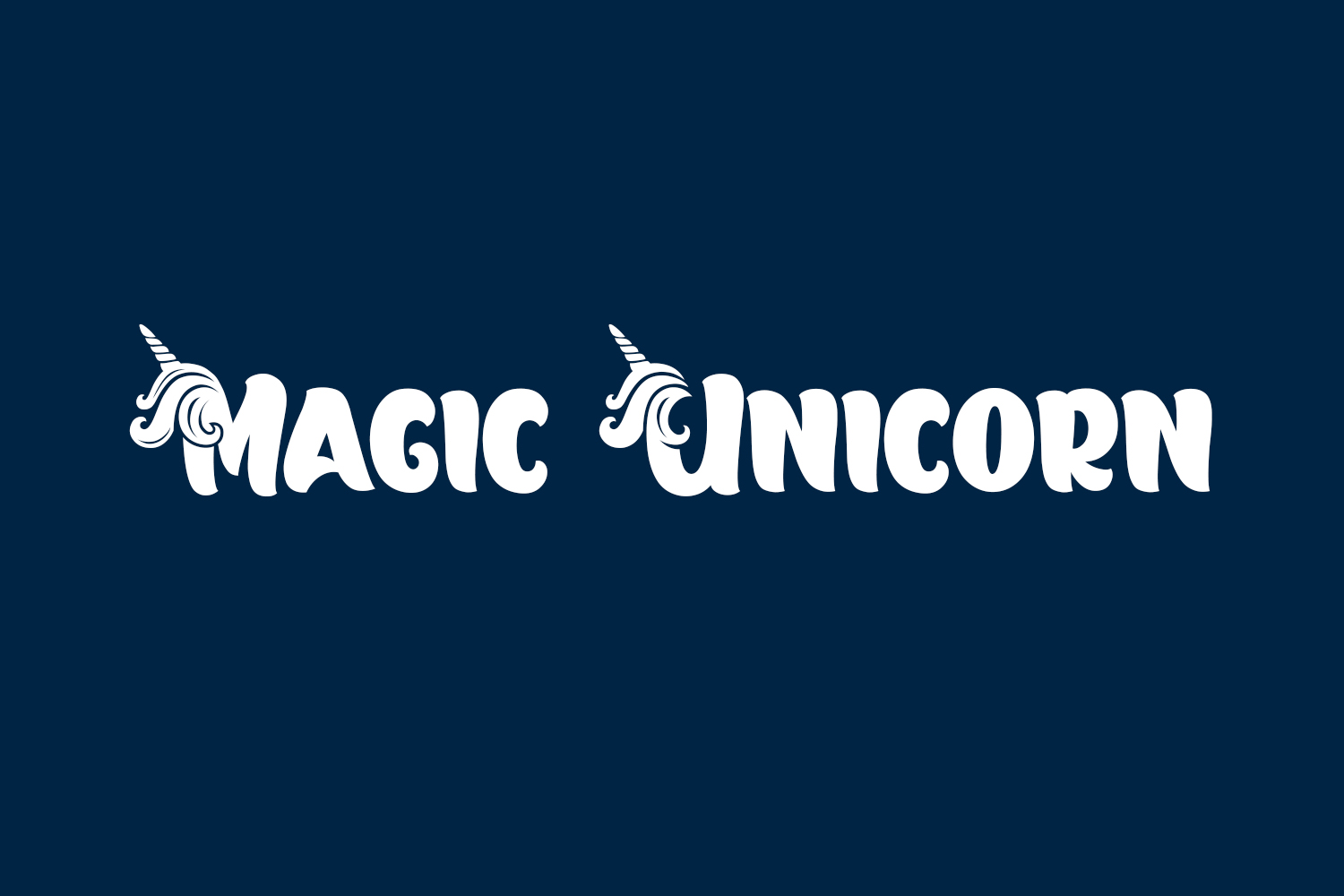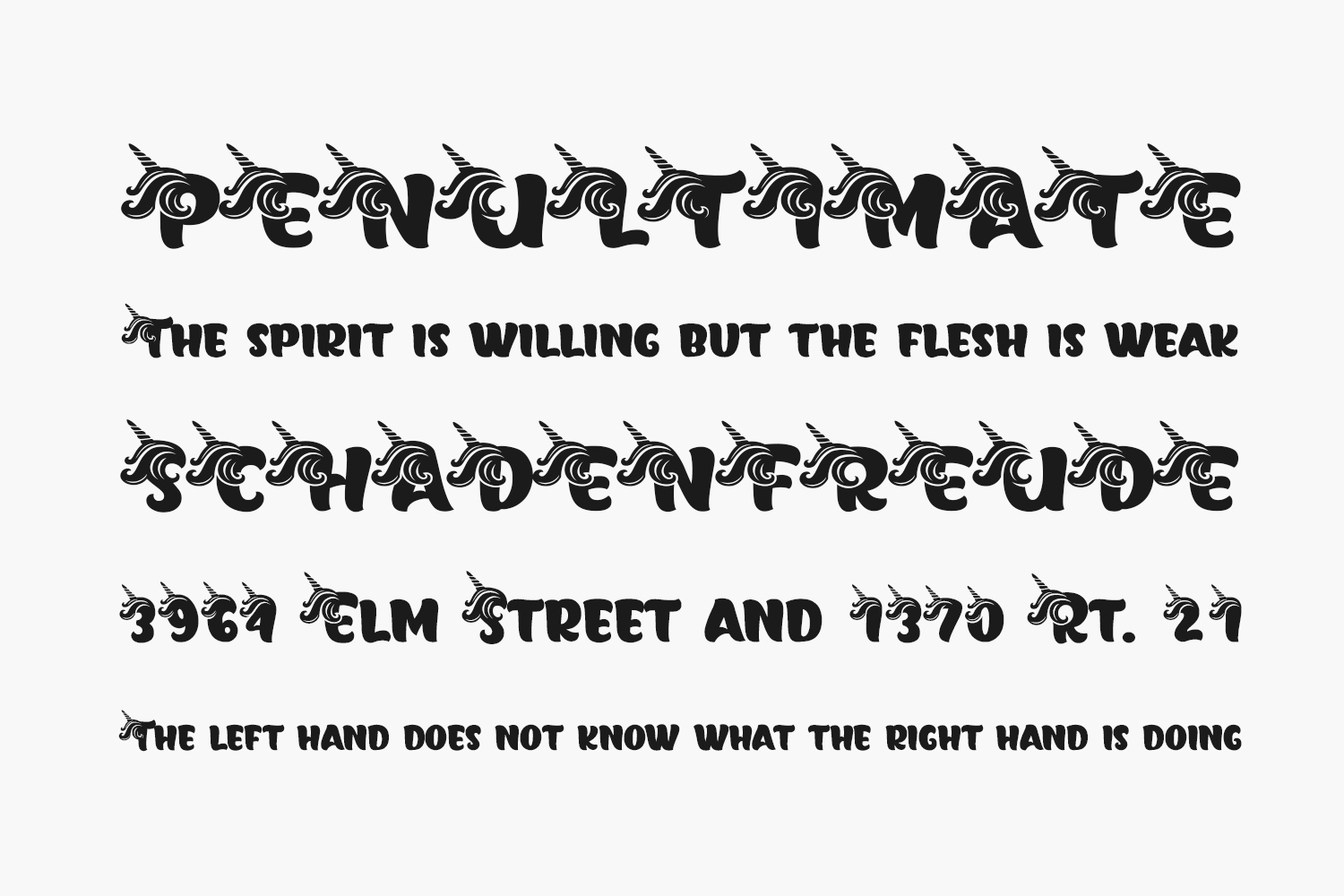
Introducing Magic Unicorn Free Font – the ultimate display font that encapsulates joy, charm, and authenticity. This delightful typeface is bound to add a touch of fun to any children’s activity or school project, making it the perfect choice for those seeking a playful and engaging design. Magic Unicorn Free Font is free for personal use only. Please purchase the full version for commercial use.